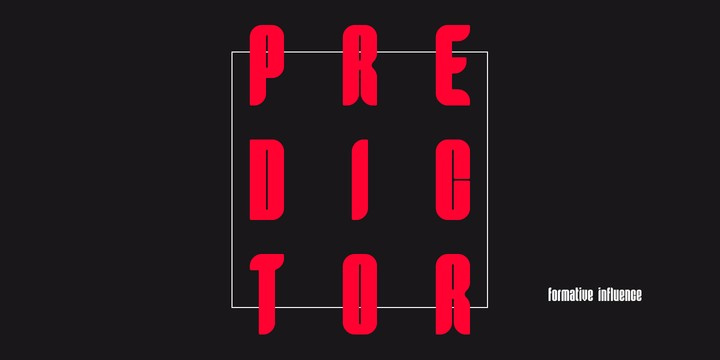
Predictor Font
Predictor Font is perfect for tech startup branding, data analytics dashboards, financial forecasting reports, artificial intelligence marketing, predictive software interfaces, consulting firm logos, research publication headers, and futuristic technology campaigns.
What makes Predictor Font exciting is its forward-thinking design that embodies precision, intelligence, and technological advancement. The font features sleek letterforms with calculated angles and systematic proportions that convey analytical thinking and strategic foresight. Its distinctive character structure and data-driven aesthetic communicate expertise, innovation, and predictive accuracy, making every message feel backed by scientific methodology and cutting-edge technology.
The Predictor Font family includes regular weight with uppercase and lowercase letters, numerals, punctuation marks, and comprehensive special characters. Premium versions often feature multiple weights and technical alternates that enhance the analytical, scientific aesthetic perfect for data-driven applications.
This sophisticated technical typeface brings instant credibility and technological authority to any analytics-focused project. Predictor Font Free Download delivers exceptional results for businesses and organizations in data science, financial services, and technology sectors seeking to communicate precision, foresight, and analytical expertise.
The analytical character of Predictor Font makes it particularly valuable for consulting firms, research institutions, and predictive analytics companies. Its excellent readability across digital interfaces ensures complex data presentations remain clear while maintaining the distinctive technical aesthetic that appeals to data-driven decision makers.
Technology professionals and data scientists appreciate how Predictor Font effortlessly conveys computational intelligence and strategic thinking. The font's precise geometry and systematic details create authoritative brand materials that establish trust with audiences seeking accurate forecasting and evidence-based insights.
The versatile intelligence of this typeface extends to investment advisory services, market research firms, and artificial intelligence startups where predictive accuracy enhances competitive advantage. Predictor Font Free Download provides creative professionals with a valuable tool for developing memorable, intelligence-focused designs that resonate with audiences who value data-driven decision making, technological precision, and the power of predictive analytics in today's information-rich business environment.